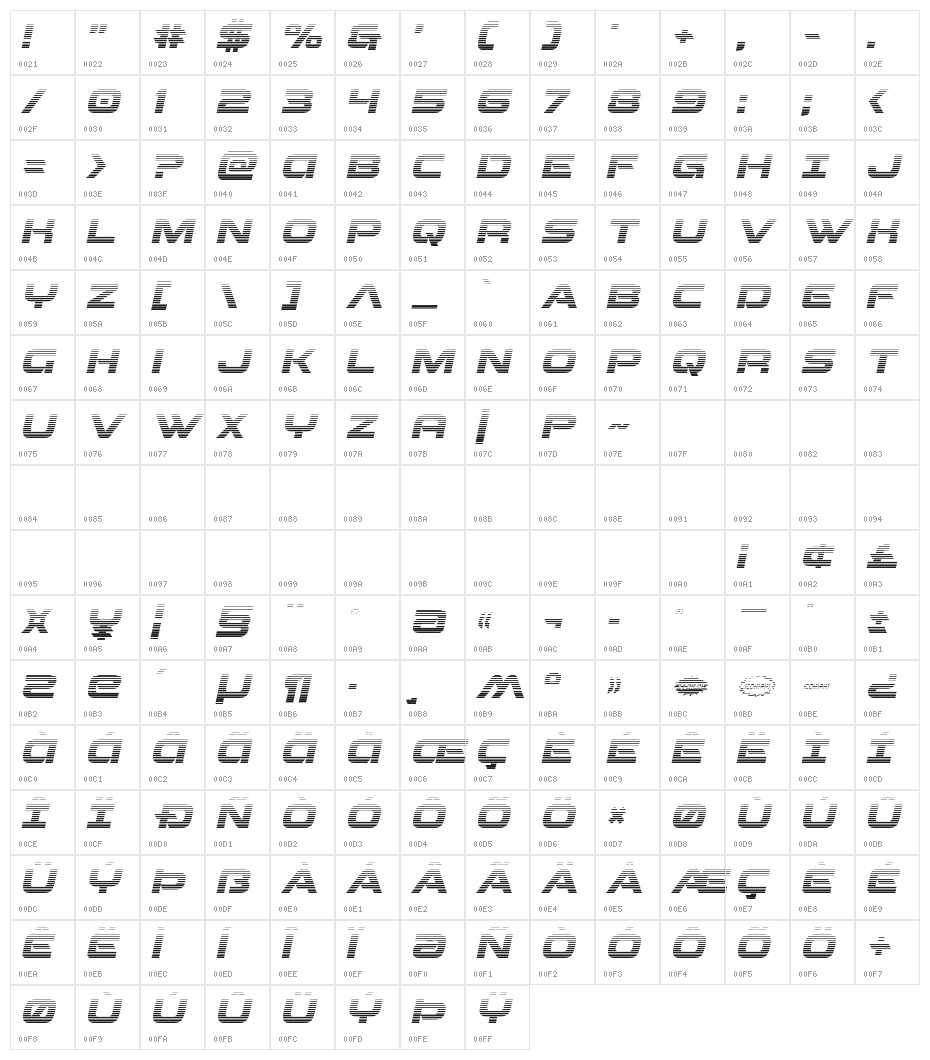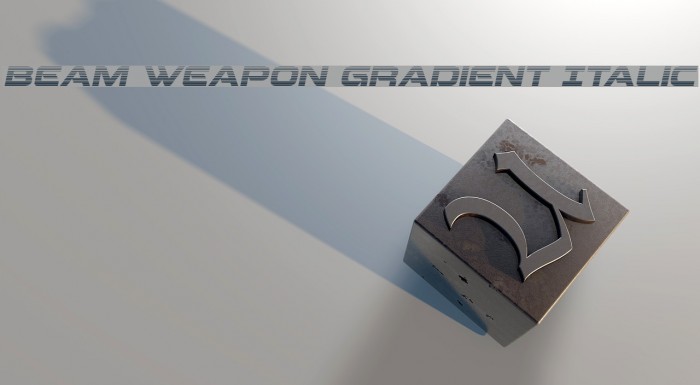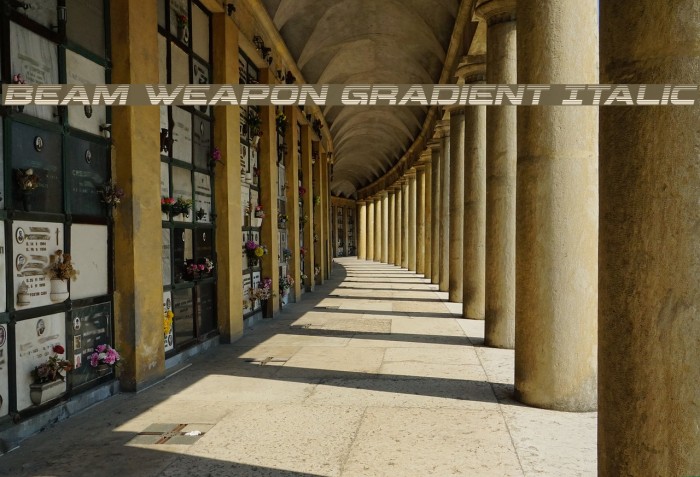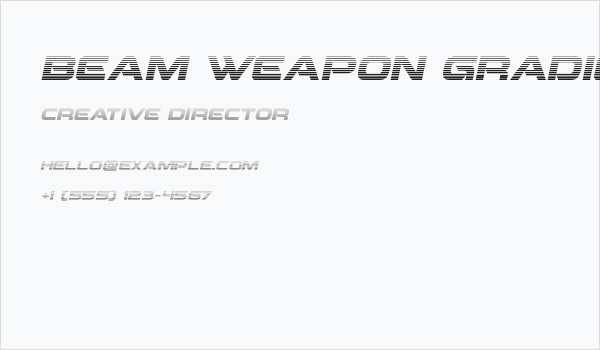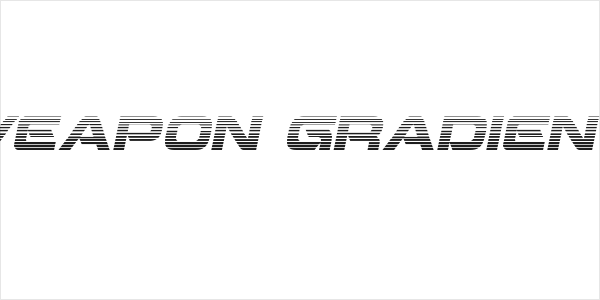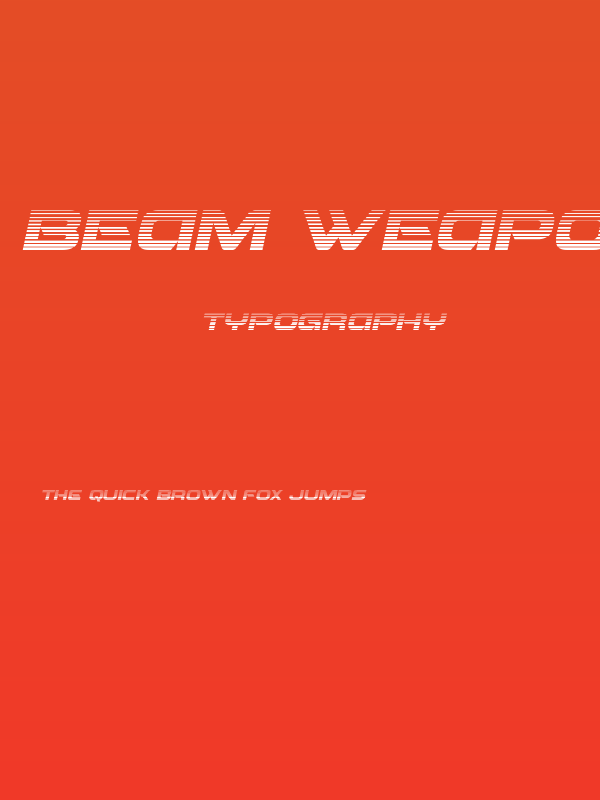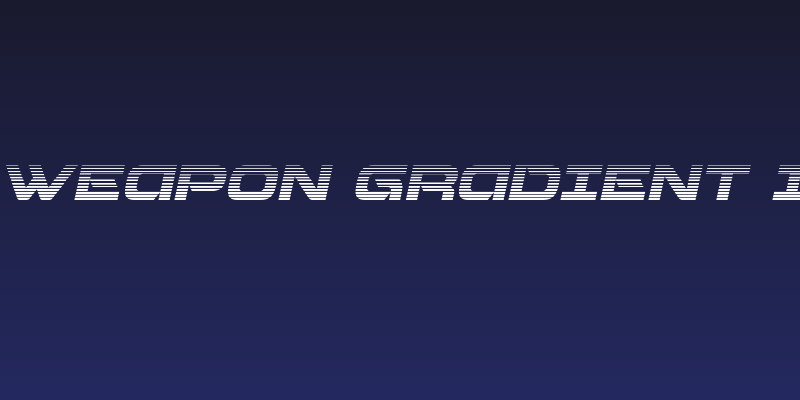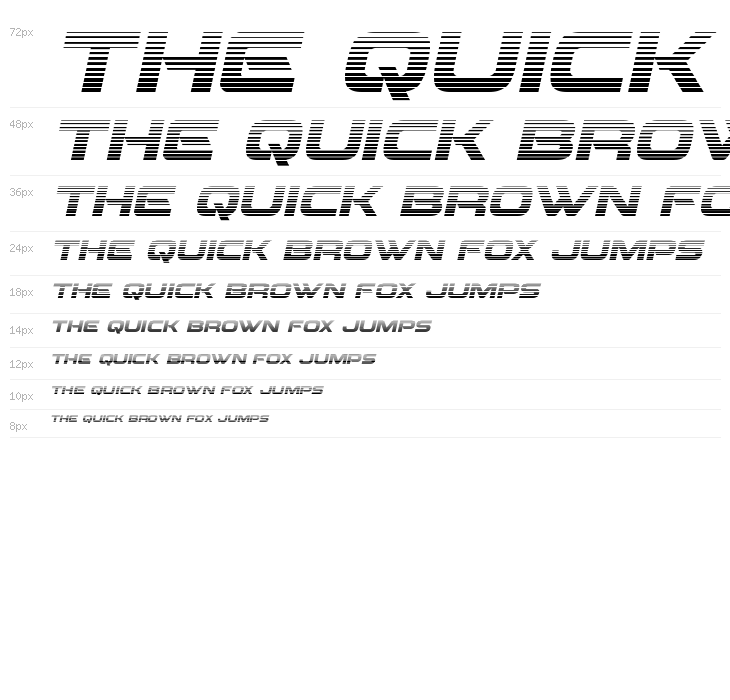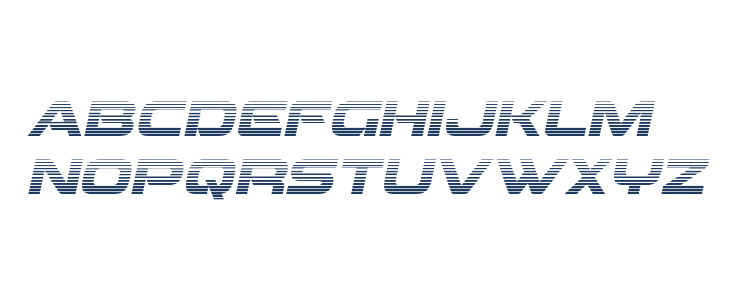
Beam Weapon Gradient Italic Font
Beam Weapon Gradient Italic Description
This font features a futuristic and dynamic design with a distinct gradient effect that gives each character a sense of motion and depth. The italicized style enhances its sleek and modern appearance, making it ideal for projects that require a sense of speed and innovation. The characters are composed of horizontal lines that create a striped pattern, adding to the overall high-tech aesthetic. The uppercase and lowercase letters maintain a consistent style, while the numerals and special characters are designed to match the bold and energetic theme. This font is perfect for use in technology-related branding, sci-fi themed projects, or any creative work that aims to convey a cutting-edge and forward-thinking message.